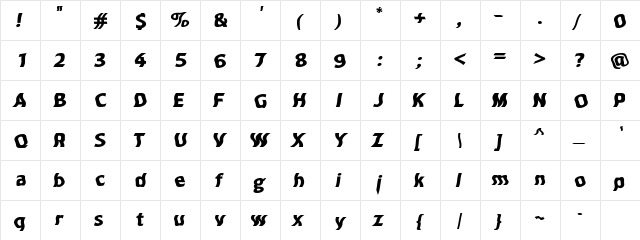
Dross03DarkSlanted Regular
Design Context for Dross03DarkSlanted Typeface
Dross03DarkSlanted is a composed and adaptable typeface that performs quietly and consistently across a wide range of design contexts. The dynamic lean of this cut emphasises speed and emphasis in any layout.
Pro Tip: Try Dross03DarkSlanted for annotation and caption copy alongside an upright companion — the contrast in angle creates a dynamic but ordered typographic system.